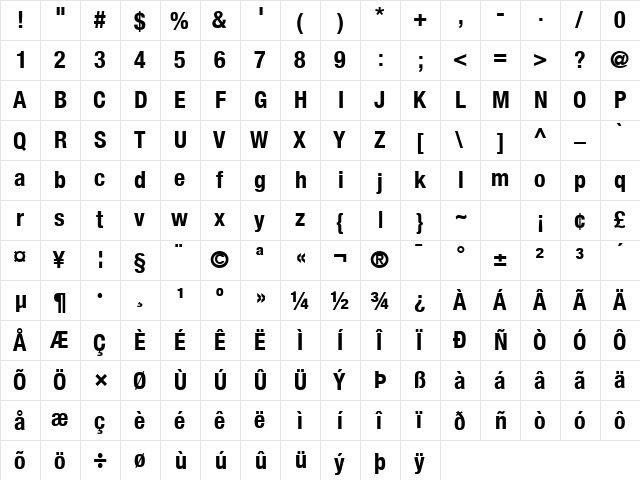
Helvetica Neue Condensed Bold
Design Context for Helvetica Neue Typeface
Helvetica Neue takes a measured approach to typography — its balanced proportions and neutral character make it a reliable workhorse for both digital and print work. Its bold stroke weight gives it real presence on the page. Its narrow stance lets it pack a punch even in space-constrained designs.